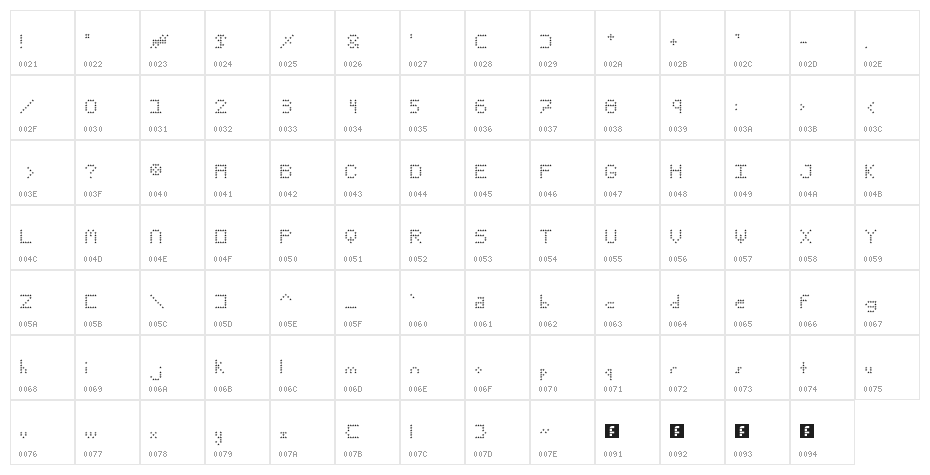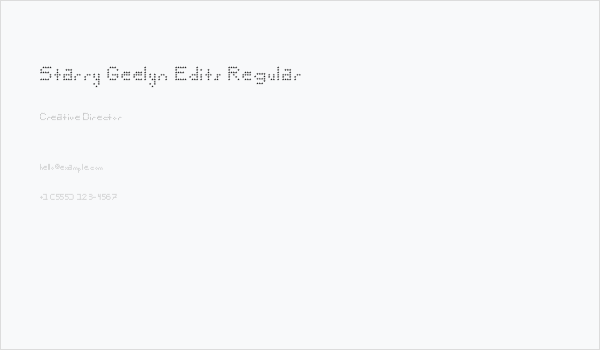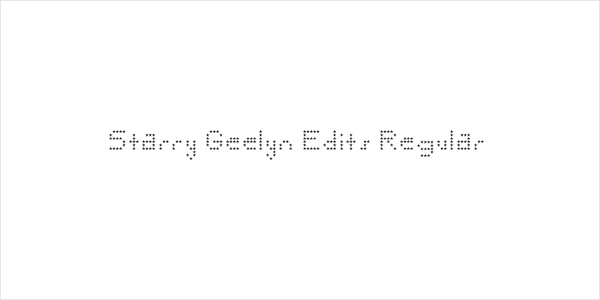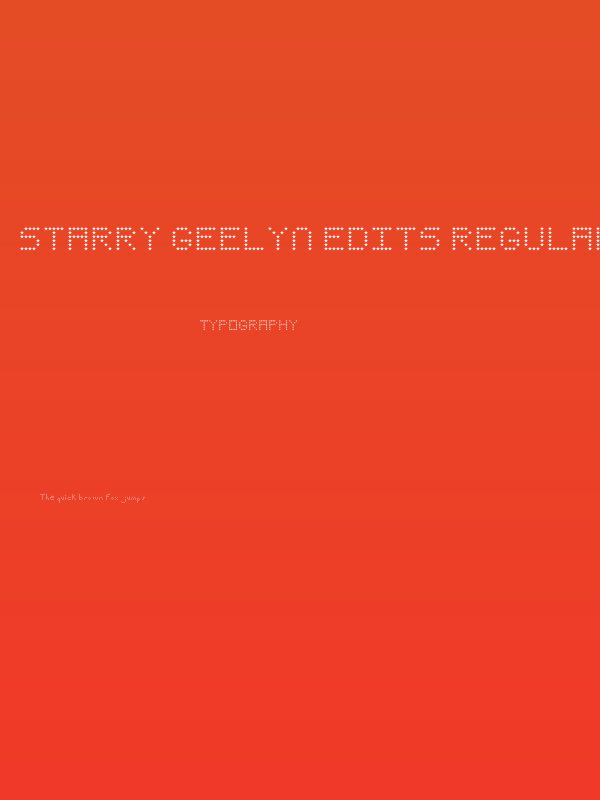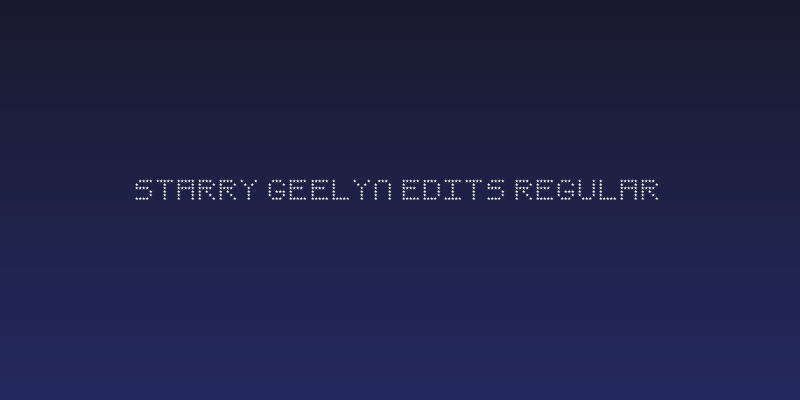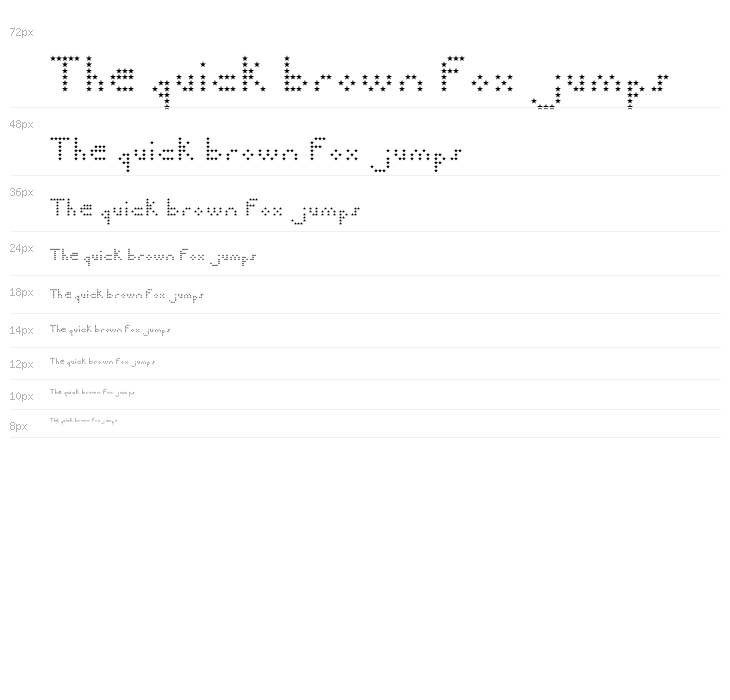
Starry Geelyn Edits Regular Font
Starry Geelyn Edits Regular Description
This font is a decorative typeface composed entirely of small star shapes forming each character. The design is playful and visually striking, making it ideal for creative and whimsical projects. The uppercase and lowercase letters, as well as numbers and special characters, are all constructed with a consistent pattern of stars, giving a cohesive and unique appearance. The font maintains a uniform size and spacing of stars across all characters, ensuring readability while adding a touch of fun and creativity. Its distinct style is perfect for projects that require a standout, eye-catching typeface.
| Proposed Projects | Ideal for children's book covers, party invitations, festive banners, and playful branding materials. |